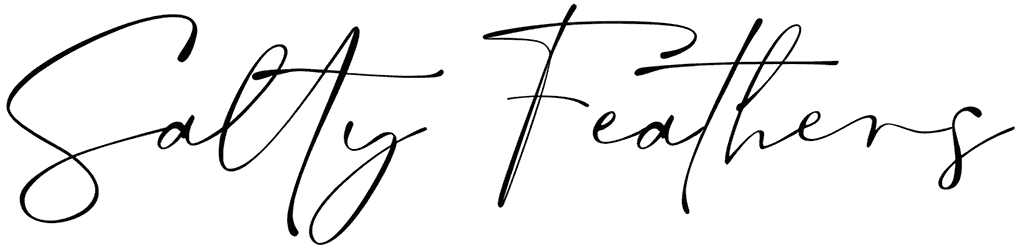
Salty Feathers Font
Salty Feathers font is an autograph font that looks hard to read and might have a flowing feel to it. Even though it doesn’t have any numbers, it has a very interesting look that is perfect for your cool work. This may be used for watermarks, invites, posters, and other similar purposes. Give it a try, it will help your project feel more trustworthy.